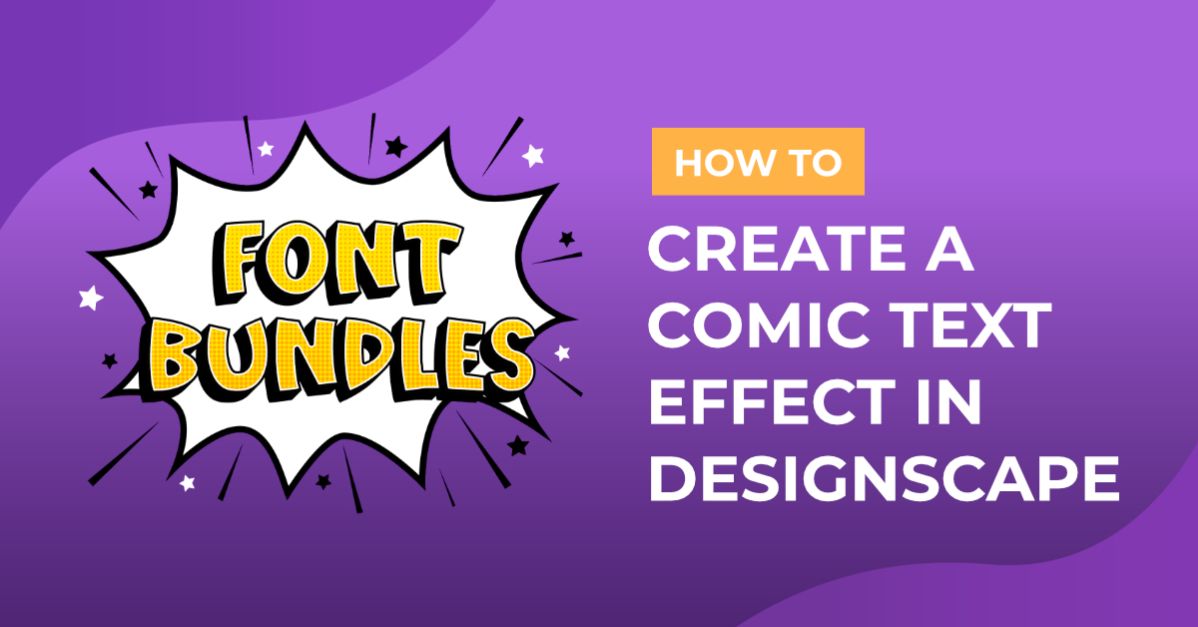
How to Create a Comic Text Effect in DesignScape
Create fun comic text in DesignScape with this easy to follow tutorial!
In this tutorial, we will create a comic text effect in DesignScapethat exudes fun and excitement. We’ll be adding a colored background to our comic text effect, but you could make yours without it for a design you can use in many ways.
How to Create a Comic Text Effect in DesignScape
The bold comic font, Squirrel Jumping, is perfect for this, but here’s a list of other great bold fonts you can use instead. In addition to picking a font, you'll want to familiarize yourself with our tutorial on making 3D text in DesignScape.
Go ahead and start a new project and import your font. We went with a 11x8.5 inch canvas.
Step 1 - Make the Background
Our colored background will have a halftone pattern on top and an explosion shape on top of the halftone pattern.
Fill Background Layer with Color
Pick a foreground color and select the Paint Bucket Tool (G). We’re using a shade of purple (#9100ff).
Note: if you don’t see the Paint Bucket Tool, click and hold the Gradient Tool until the list opens, then select Paint Bucket Tool.
Select Foreground Color and Paint Bucket Tool in DesignScape
Click on the canvas to fill the Background layer with the foreground color.
Click on canvas to fill Background layer with foreground color
Create a Halftone Pattern
To create a halftone pattern, we’ll start by making a gradient.
Make a Radial Gradient
Click the New Layer button near the bottom right corner. Then double-click on the new layer’s name in the Layers panel and change it to Halftone.
Create a new layer and rename it to Halftone
Select the Gradient Tool (G) located in the same spot as the Paint Bucket Tool.
Click and hold the Paint Bucket Tool then choose Gradient Tool
Click the mini foreground and background color icon to reset the colors to black and white. Then change the gradient style in the top toolbar to Radial. Next, click and drag from the center of the canvas out to the right edge while holding the Shift key.
Create a Radial gradient with black and white starting from the center to the edges
The gradient is shown in the following image.
Radial gradient going from black to white in the center to the edges
Add a Halftone Filter to the Radial Gradient
Go to Filter > Pixelate > Color Halftone.
Click on Filter in the top menu, then Pixelate and Color Halftone
Enter 40 px for the Radius, 0° for Angle 1, 2, and 3, and click OK.
Enter a Radius of 40 px and Angles of 0 degrees
See our halftone pattern in the following image.
Halftone pattern layer created in DesignScape
Change the Halftone Layer Blend Mode and Opacity
Select the Halftone layer in the Layers panel, change the Blend Mode to Multiply, and lower the Opacity to about 17%.
Change Halftone layer's blend mode to Multiply and Opacity to 17%
Lock the Halftone Layer
Let’s lock the Halftone layer so we don’t accidentally move or alter it. Click the Halftone layer and then the padlock icon.
Click the padlock icon with the Halftone layer select to lock it
Create an Explosion Shape
Add Anchor Points Using the Pen Tool
Select the Pen Tool (P). Set the Fill to None and Stroke to black. Click near the edge of the canvas to add your first anchor point that will be one of the corners/peaks of the explosion shape.
Use the Pen Tool to add the first anchor point in DesignScape
Then, click and drag a little closer to the center of the canvas to create a slightly curved path.
Click and drag to add a second anchor point and create a slight curve in the path
Next, click on the canvas again to add another anchor point and create a wide U-shaped path. Continue adding anchor points around the canvas in a circular shape. Alternate between the two different anchor points until you reach the first anchor point. Make sure you click the first anchor point to close the shape.
Click a third time to add another anchor point in DesignScape
Edit Anchor Points and Paths Using the Direct Selection Tool
With the Direct Selection Tool (A), move the anchor points and edit the angles of the curve if needed.
Click an anchor point to select it. Then click and drag the anchor point to move it where you want, or click and drag the handles (white circles) to change the angle of the curve.
Edit anchor points and path curves using the Direct Selection Tool
Change Explosion Shape’s Fill and Stroke
In the top toolbar, change the Fill color, Stroke color, and stroke width of the explosion shape. We went with white for the Fill, black for the Stroke, and a width of 40 px.